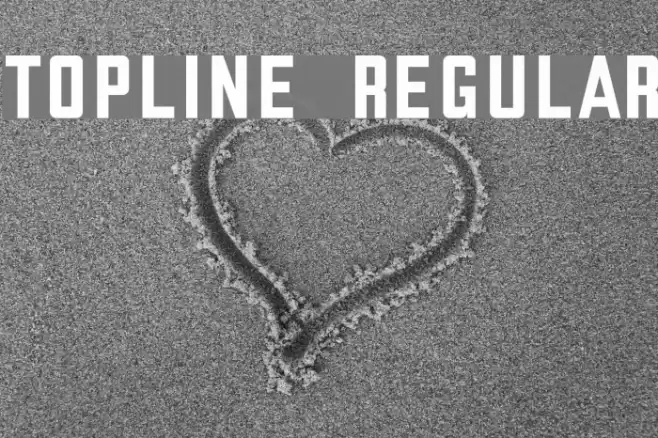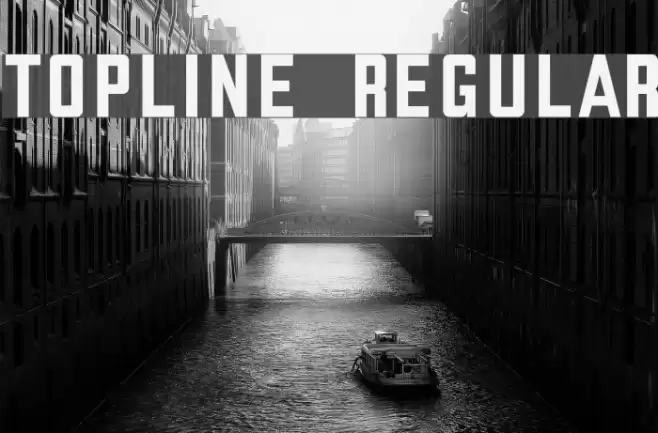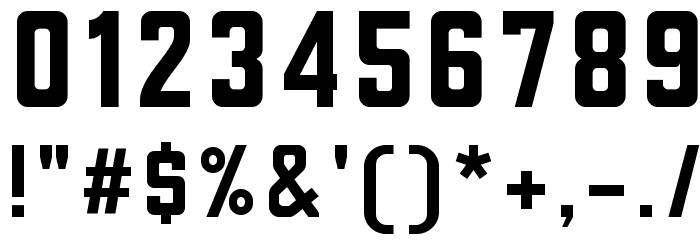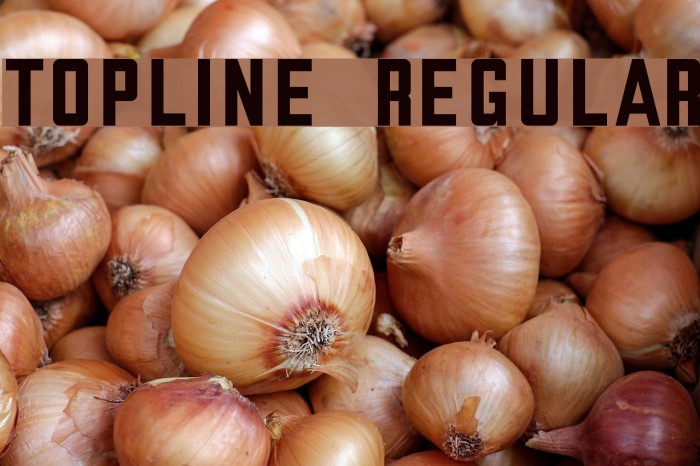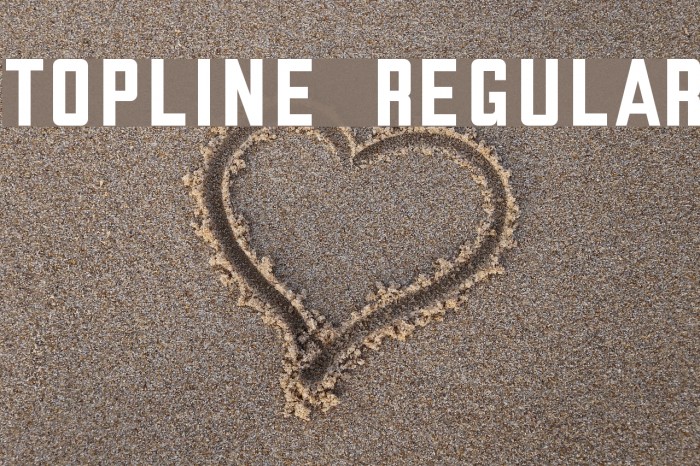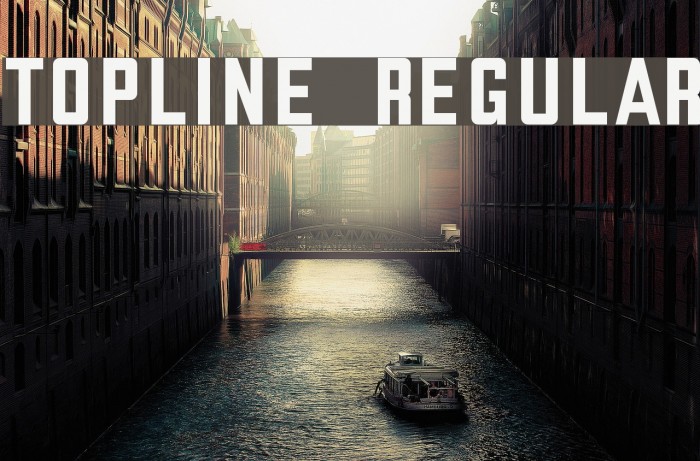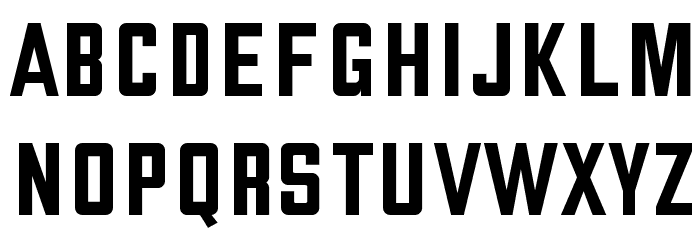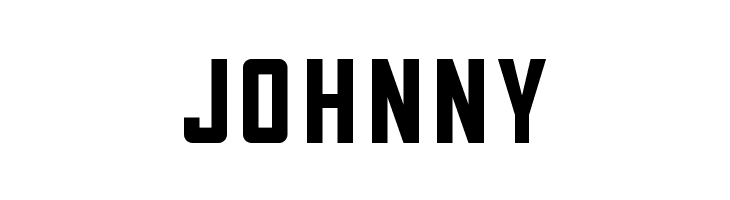
Topline regular Font
Topline regular Description
This font features bold, geometric letterforms with a strong presence, making it ideal for attention-grabbing designs. The uppercase letters are uniform in height, with a consistent stroke width that gives a clean and modern appearance. The numerals are equally robust, maintaining the same visual weight as the letters. Special characters are distinct and easily recognizable, enhancing the font's versatility. The overall style is reminiscent of industrial and modern design, suitable for projects that require a bold statement.
A bold, geometric font with a modern, industrial style from Uncategorized fonts.
- Proposed Projects: Ideal for headlines, posters, branding, and signage where a strong, impactful look is desired.